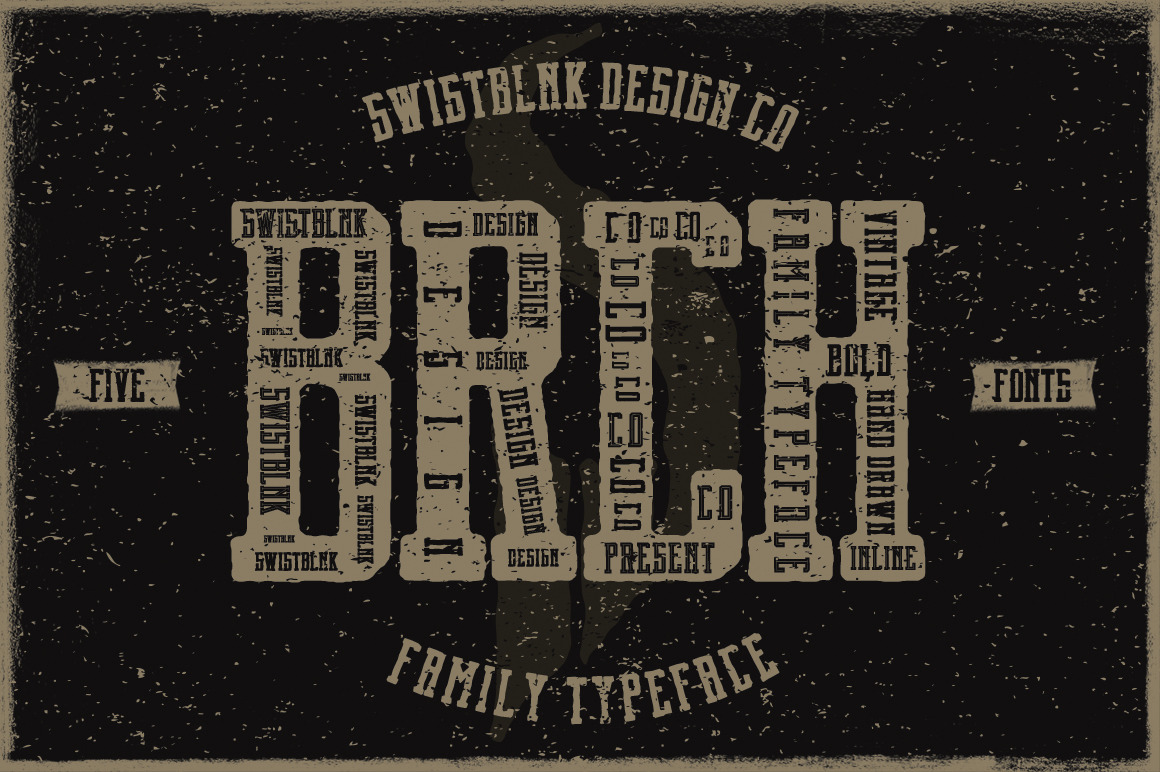
Brch Family Typeface
Brch Family
Brch is similar with Blnc( but without gaff. This typeface inspired by Old Western lettering with some Modern touch. Great for almost all of your designing needs including headline, labels, logo, etc.
Love vintage hand drawn? Brch also come with Vintage and Hand drawn Style and Inline to make some retro feel.
Brch Family includes 5 fonts :
- Brch Regular
- Brch Bold
- Brch Inline
- Brch Hand Drawn
- Brch Vintage